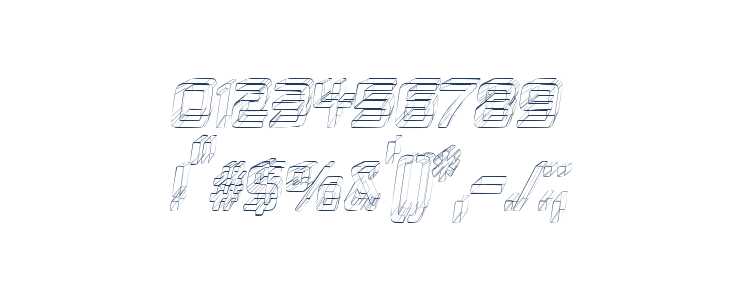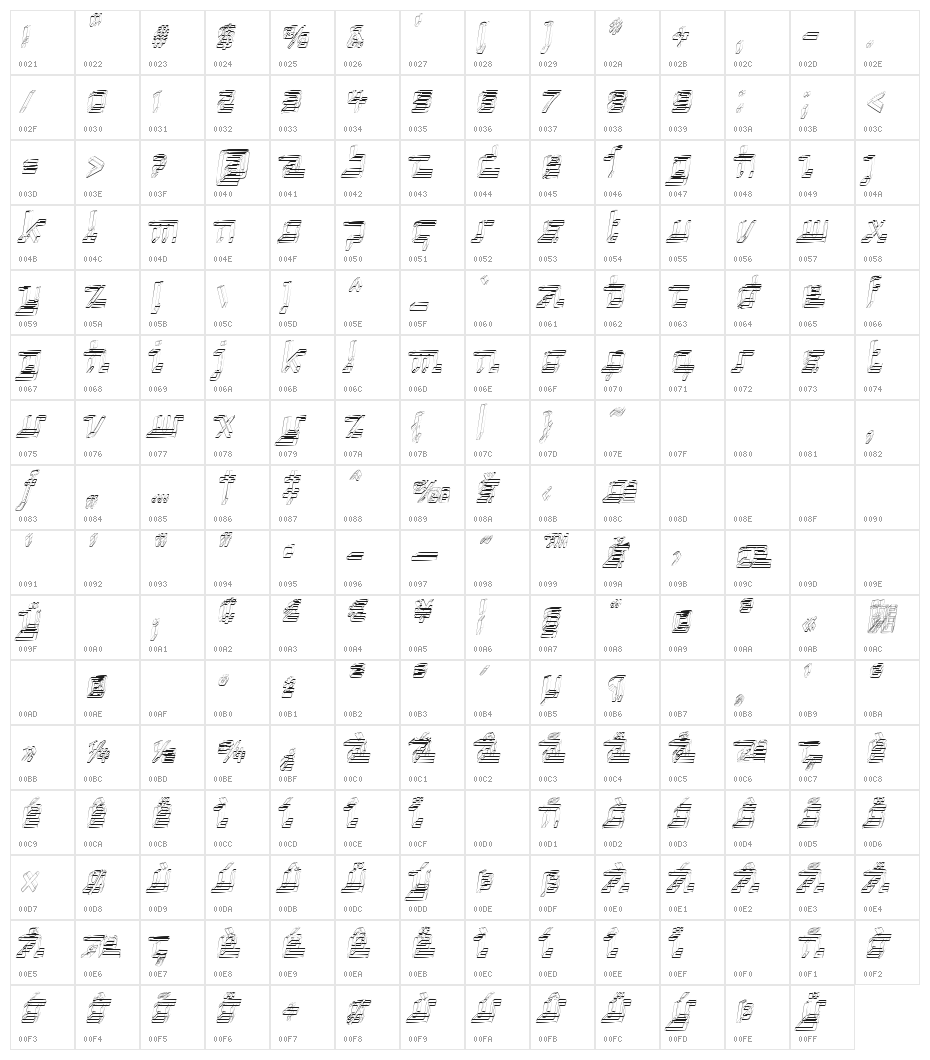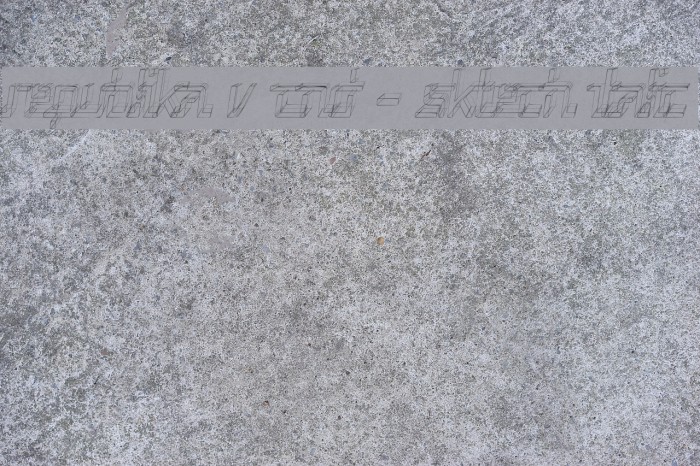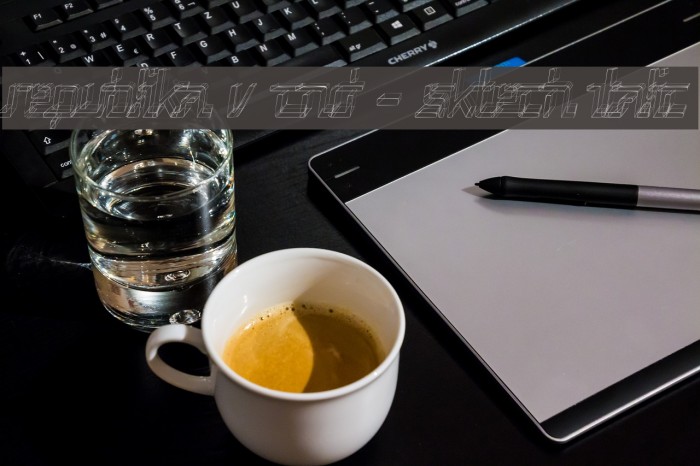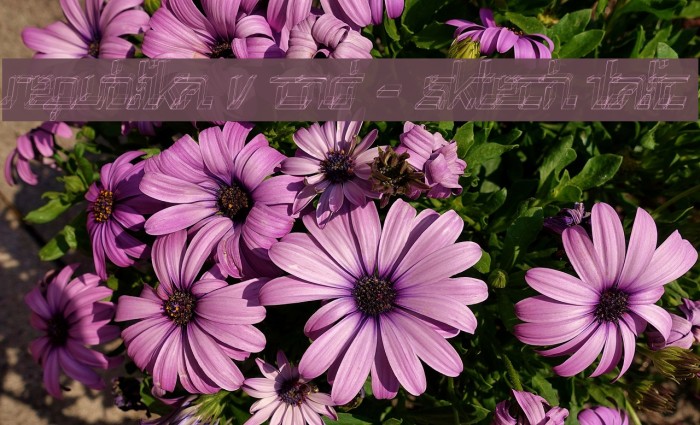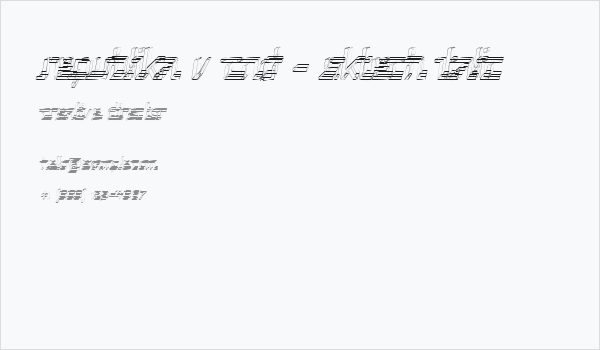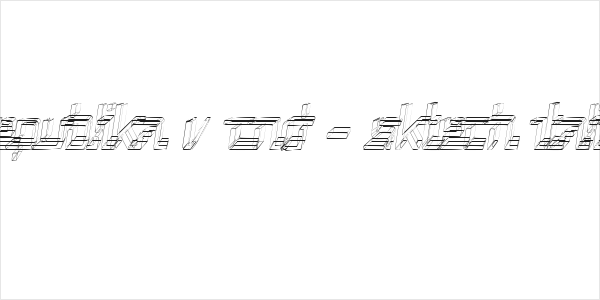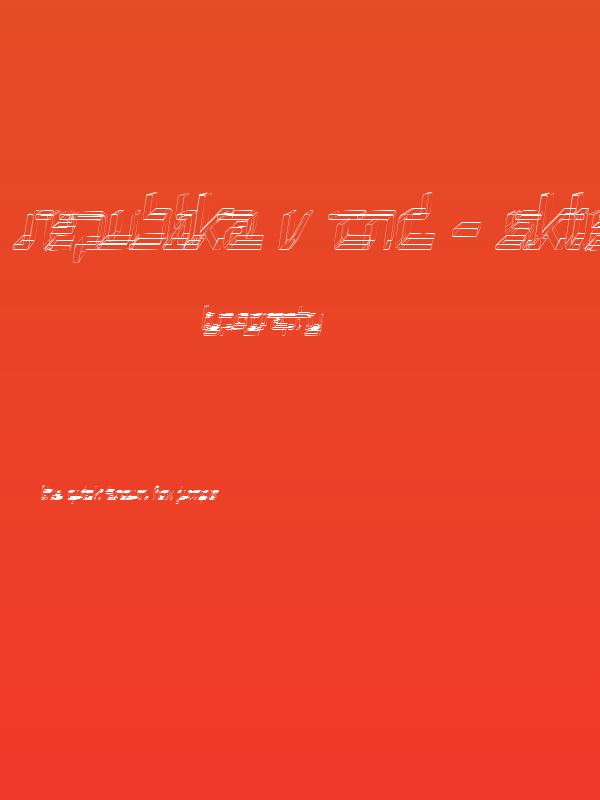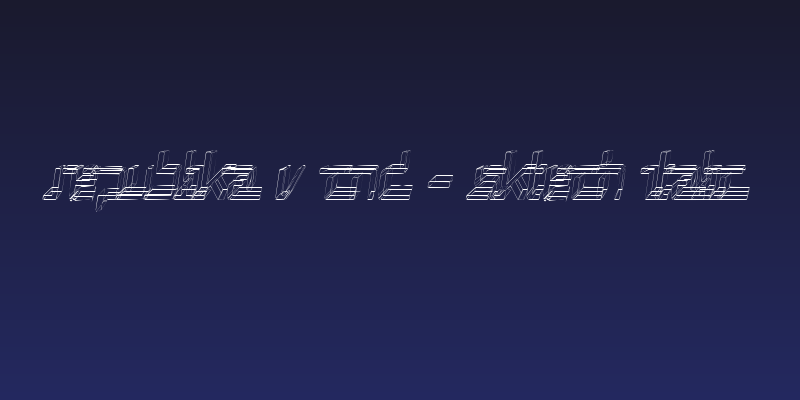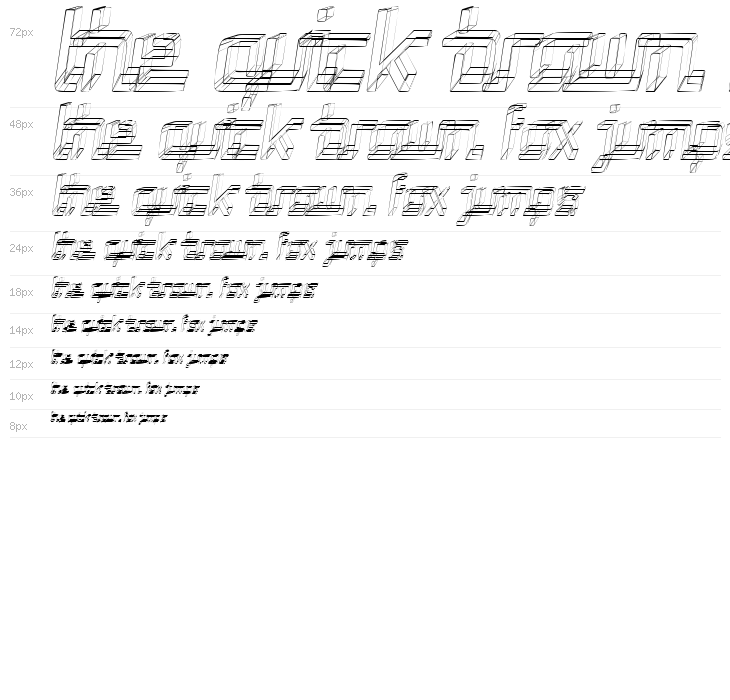
Republika V Cnd - Sktech Italic Font
Republika V Cnd - Sktech Italic Description
This font features a unique sketch-like appearance with a condensed and italicized style. The characters are outlined with a hand-drawn effect, giving them a dynamic and artistic look. The uppercase and lowercase letters maintain a consistent slant, enhancing the italicized feel. Numbers and special characters follow the same design principles, ensuring uniformity across all glyphs. The font's playful and creative aesthetic makes it stand out, ideal for projects that require a touch of individuality and flair.